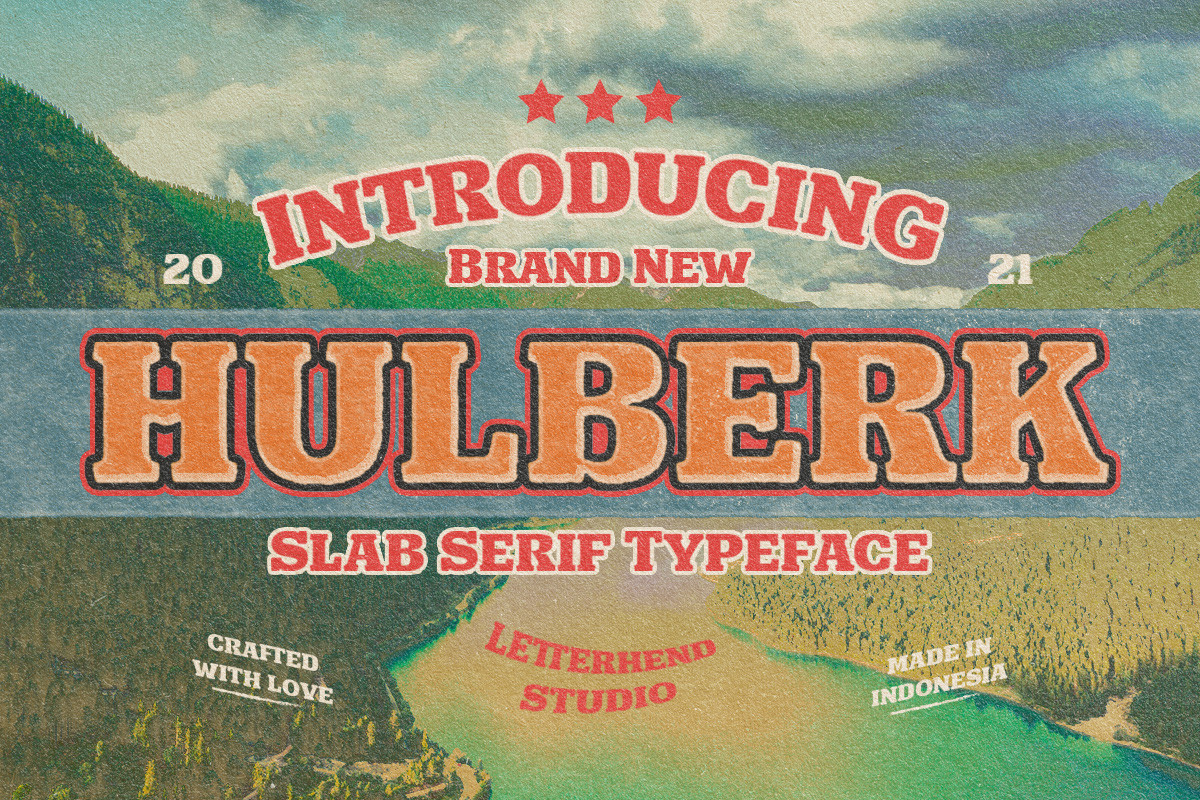
Hulberk Font
Perfect for headlines, posters, branding, packaging, and creative projects.
The Hulberk Font excites designers with its bold, textured serif style that adds a rugged yet refined touch to any design.
The Hulberk Font Free Download features strong serifs and a distressed texture, making it ideal for vintage branding, outdoor-themed projects, and editorial layouts that demand character.
One of the key strengths of Hulberk Font is its ability to combine classic serif elegance with a raw, tactile feel that grabs attention and conveys authenticity.
In branding, Hulberk communicates strength, tradition, and creativity. It pairs excellently with earthy tones, natural textures, and bold visuals to create impactful designs.
For digital projects, this font enhances website headers, social media graphics, and promotional materials with a unique vintage flair that stands out.